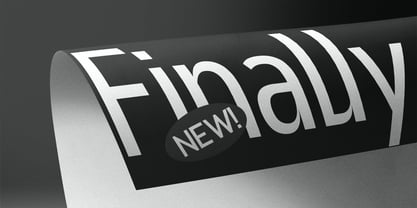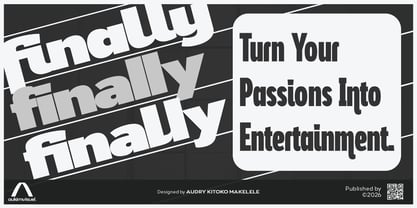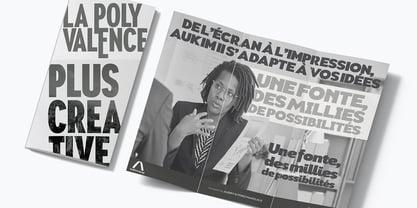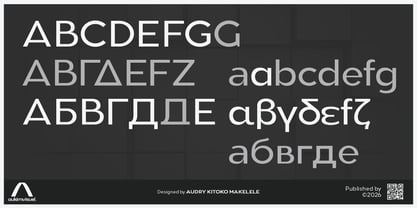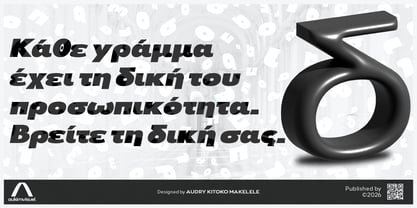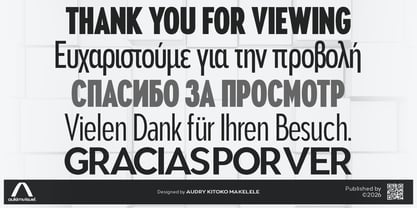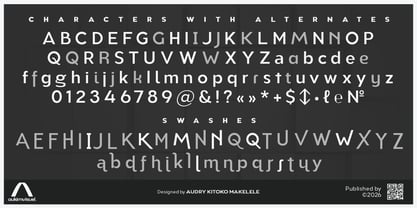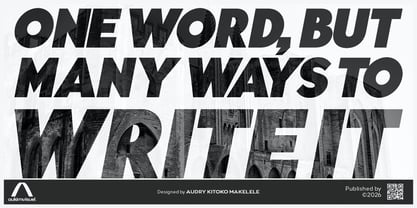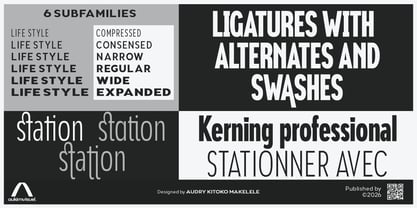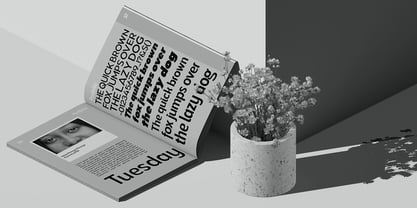
Aukim II
The Aukim II Font Family was designed by Audry Makelele and published by AukimVisuel. Aukim II contains 234 styles and family package options. More about this family
The modern sans serif typeface family Aukim II was designed to meet professional requirements for legibility, consistency, and stylistic flexibility. Its neutral yet distinctive design combines geometric and humanist influences to suit both headlines and body text in branding projects, interfaces, and print publications. It offers extensive language coverage: the font supports Latin (basic, additional, extended, advanced, and IPA extensions), Cyrillic (basic, extended, and historic), and Greek (basic). With 2,401 glyphs, it includes numbers, punctuation, diacritics, currency symbols, and stylistic variants necessary for multilingual and specialized projects. The family offers several optical widths (Compressed, Condensed, Narrow, Normal, Wide, and Expanded) allowing the typography to be adapted to layout, space, and visual hierarchy constraints. It is also available in three distinct angles: Normal, Italic, and Slanted, offering designers an expressive palette for prioritizing text, introducing dynamism, or reinforcing visual identity. Typographically, it incorporates 44 OpenType features: contextual and discretionary ligatures, stylistic alternates, swashes, small caps, tabulars, fractions, superscripts/subscripts, case-sensitive forms, localized forms, and professional kerning. These tools offer precise control over rendering and enable neat compositions, whether in print or digital. Technically, the font features careful kerning and optimized hinting for consistent rendering at all sizes. It is designed for multi-platform integration and is suitable for environments that require performance and compatibility. In practice, Aukim II is aimed at design studios, branding agencies, publishers, and product teams. It is ideal for visual identities, multilingual user interfaces, editorial publications, and signage. Its range of widths, three angles, and OpenType features make it a versatile tool for professional projects that require consistency, expressiveness, and technical robustness.